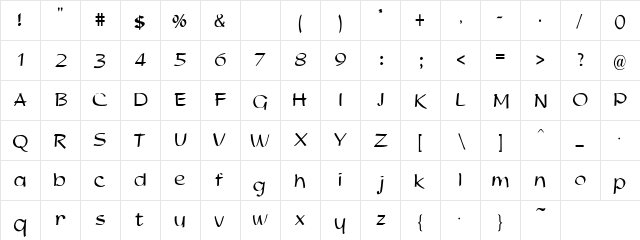
68 Regular Font Preview
68 Regular
Design Context for 68 Typeface
68 takes a measured approach to typography — its balanced proportions and neutral character make it a reliable workhorse for both digital and print work.